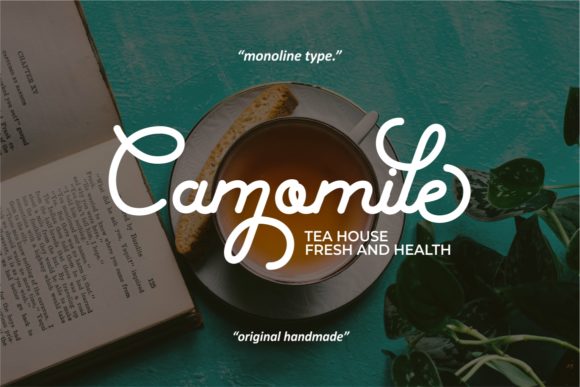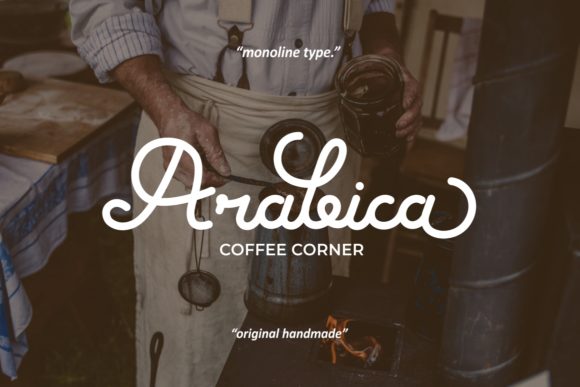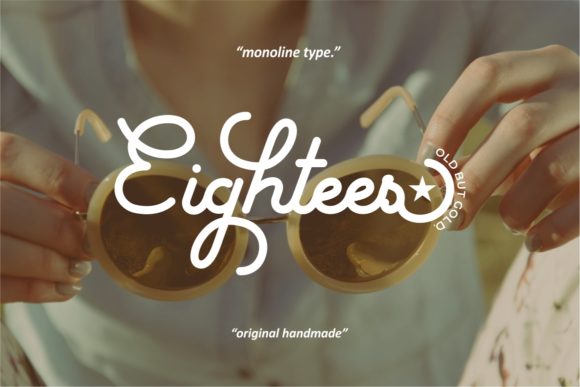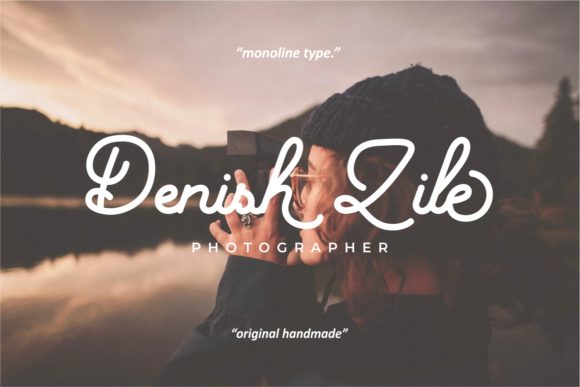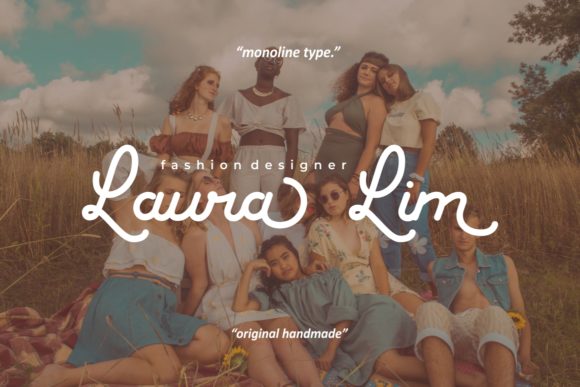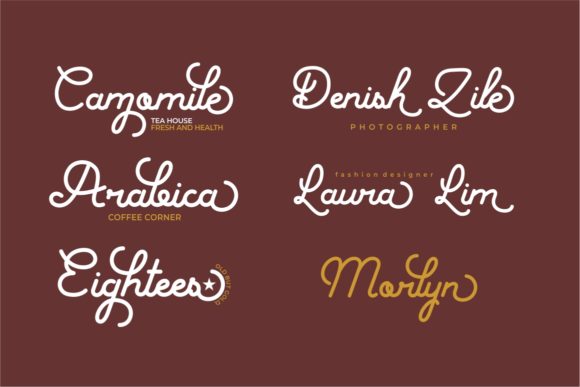
Introduction to Morlyn Font
Have you ever been rummaging through your grandparents’ attic, uncovering old photographs and dusty trinkets that instantly transport you back in time? It’s those fleeting moments of nostalgia that spark the creative flame within us, driving us to create something truly special. For designers, it’s no different. The right font can evoke a sense of timelessness, transporting your audience to a bygone era. That’s where the Morlyn Font comes in – a charming, handwritten font that’s sure to add a touch of vintage magic to any design project.
Whether you’re working on a creative project or simply looking for a design resource to elevate your next idea, the Morlyn Font is an invaluable asset. With its smooth lines, gorgeous glyphs, and stunning alternates, this font is a game-changer for designers seeking to add a high-quality, retro aesthetic to their work.
Key Features of Morlyn Font
- High-quality font with a transparent background, perfect for creative projects requiring a subtle design element.
- Features a unique, elegant design that can add a touch of sophistication to any creative project.
Honest Review: Morlyn Font
As a designer, I’m always on the lookout for high-quality design resources to enhance my creative projects. The Morlyn Font caught my attention with its sleek and modern design. Here’s my honest review.
- Unique and modern design aesthetic
Overall, I’m impressed with the Morlyn Font’s design and quality. It’s a great addition to any designer’s toolkit, especially for smaller creative projects. However, be mindful of the licensing restrictions and compatibility issues. With proper use, this font can elevate your designs and make them stand out.
Tips for Getting the Most Out of Morlyn Font
Morlyn Font is a versatile design resource that can be used in a variety of creative projects, including graphics, presentations, and documents. Its high quality and transparent background make it a great choice for designers and artists looking to add a touch of elegance to their work.